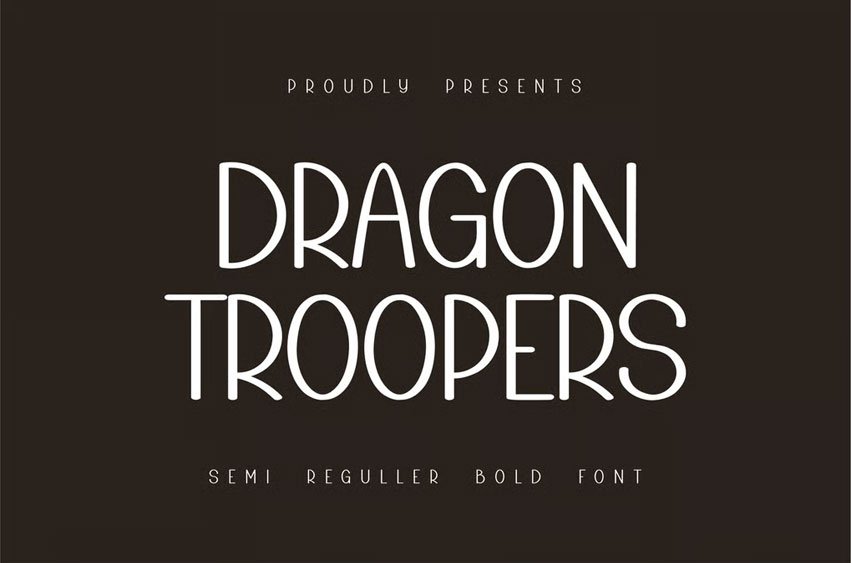
Dragon Troopers Font from the sans serif family that is soft, not too thick and not too thin, rounded at each end.
Makes the display easy to read and suitable for large jobs. such as writing in a magazine. news broadcasts, television shows, research videos or tutorials.